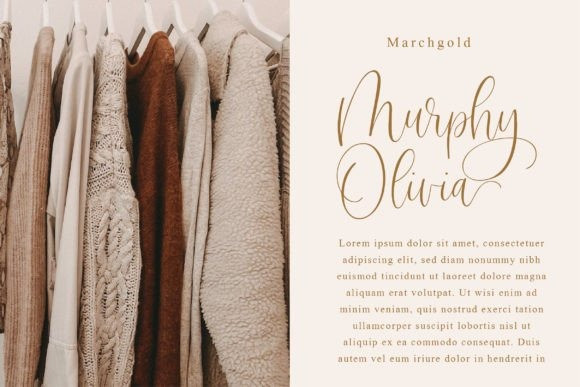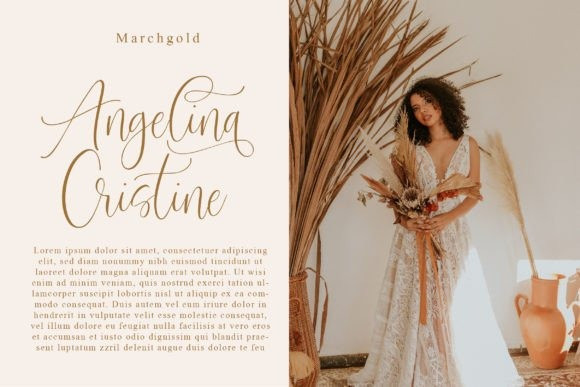
Marchgold Font
Marchgold Script Font. This exquisite and elegant handwritten font is a timeless and refined design. Marchgold’s graceful, flowing letters and delicate flourishes create a sense of sophistication and romance that is perfect for adding a touch of luxury to your branding or stationery.